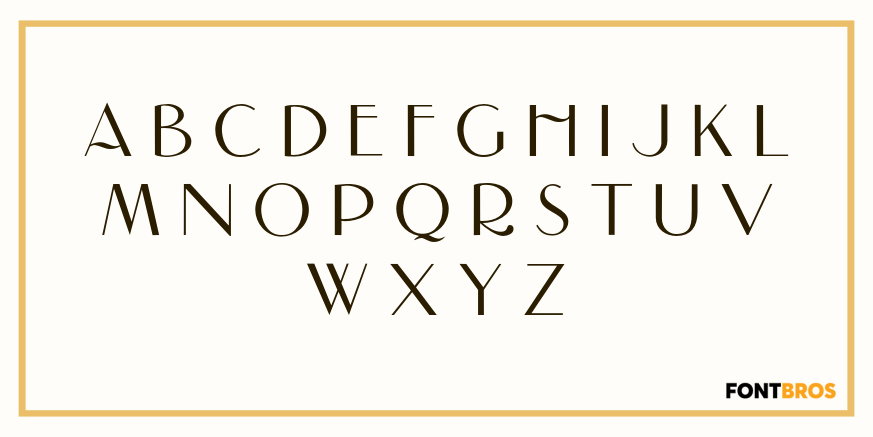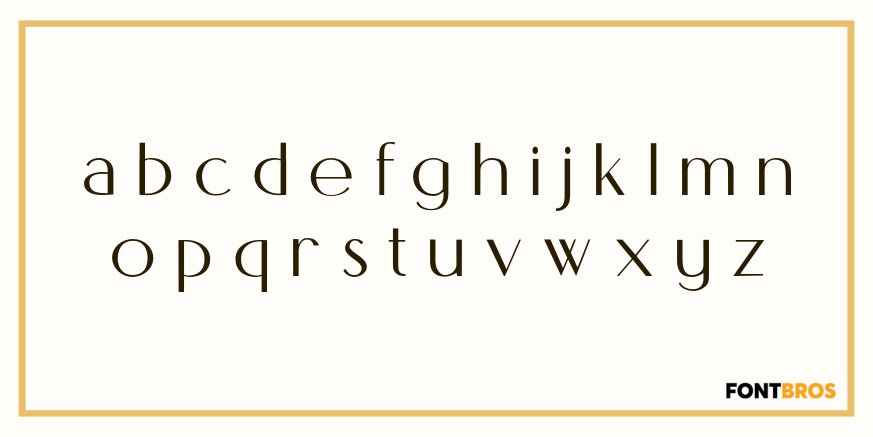
Nadall
Font Family by Solotype
This stylish lightface was designed by Bernd Nadall for Barnhart Bros. & Spindler as a caps-only font in 1895.
The lowercase was added at Solotype a hundred years later, resulting in a font quite at home in modern advertising.